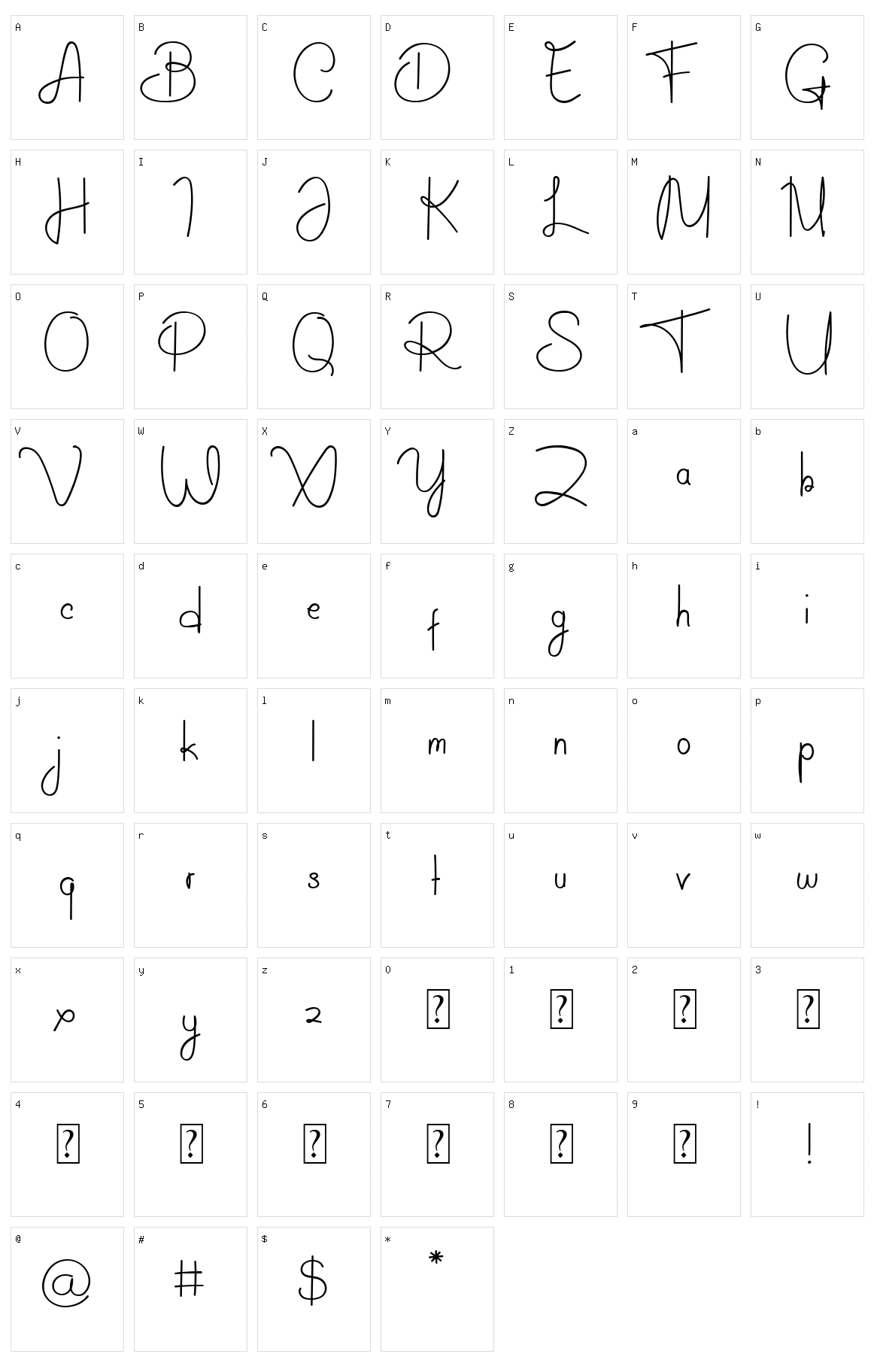
The free font The Symphony! is carefully designed by Indro Tanwijoyo, showcasing a thoughtful balance of creativity and usability and falls under the Script font style. When you download the ZIP file, it contains only 25.36 KB of font files, making it lightweight and quick to download. Please review the license details below to understand permitted usage and distribution rights. If license information is not available, we recommend using this font for personal projects only or contacting the author directly for commercial usage permissions.